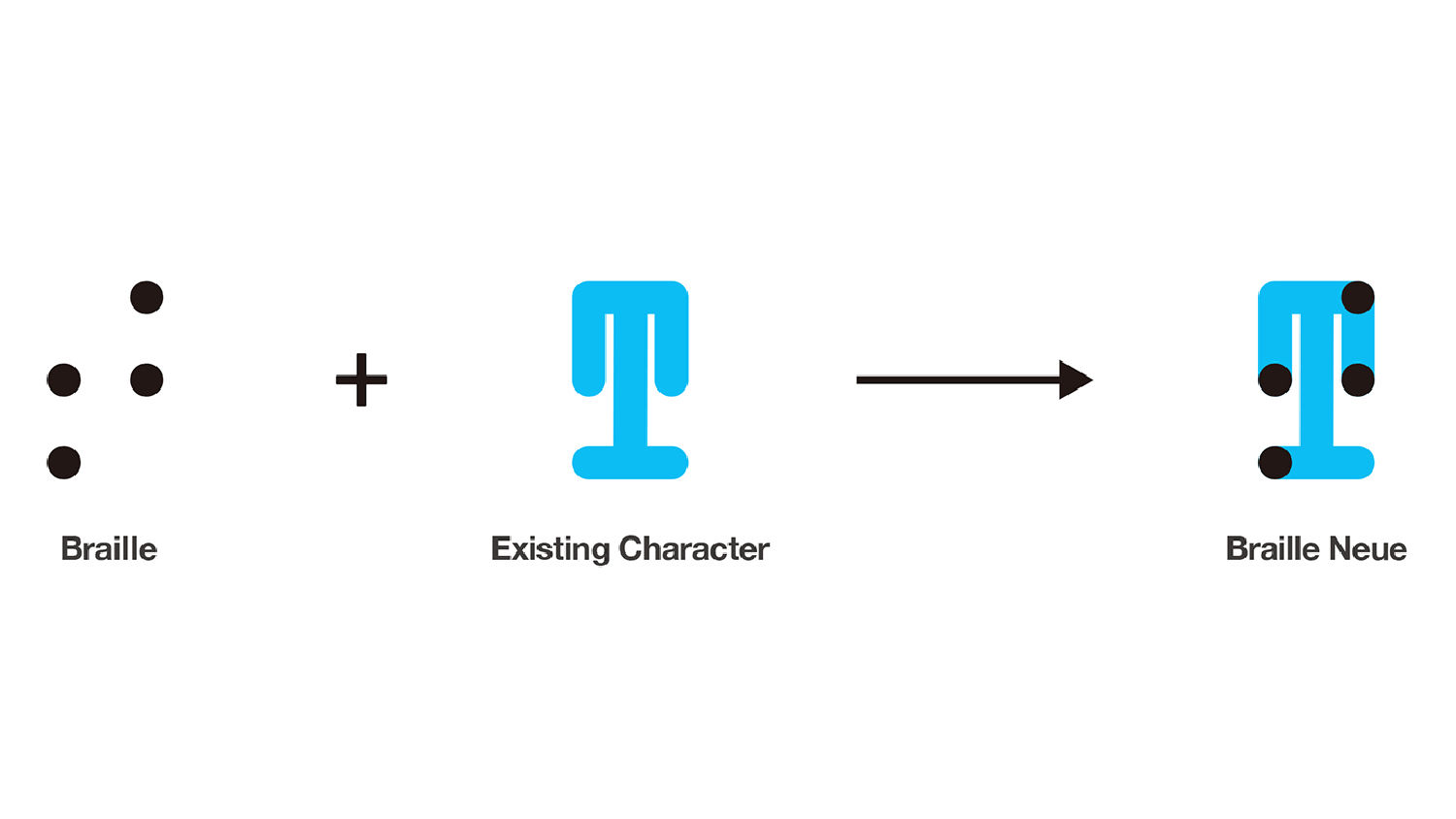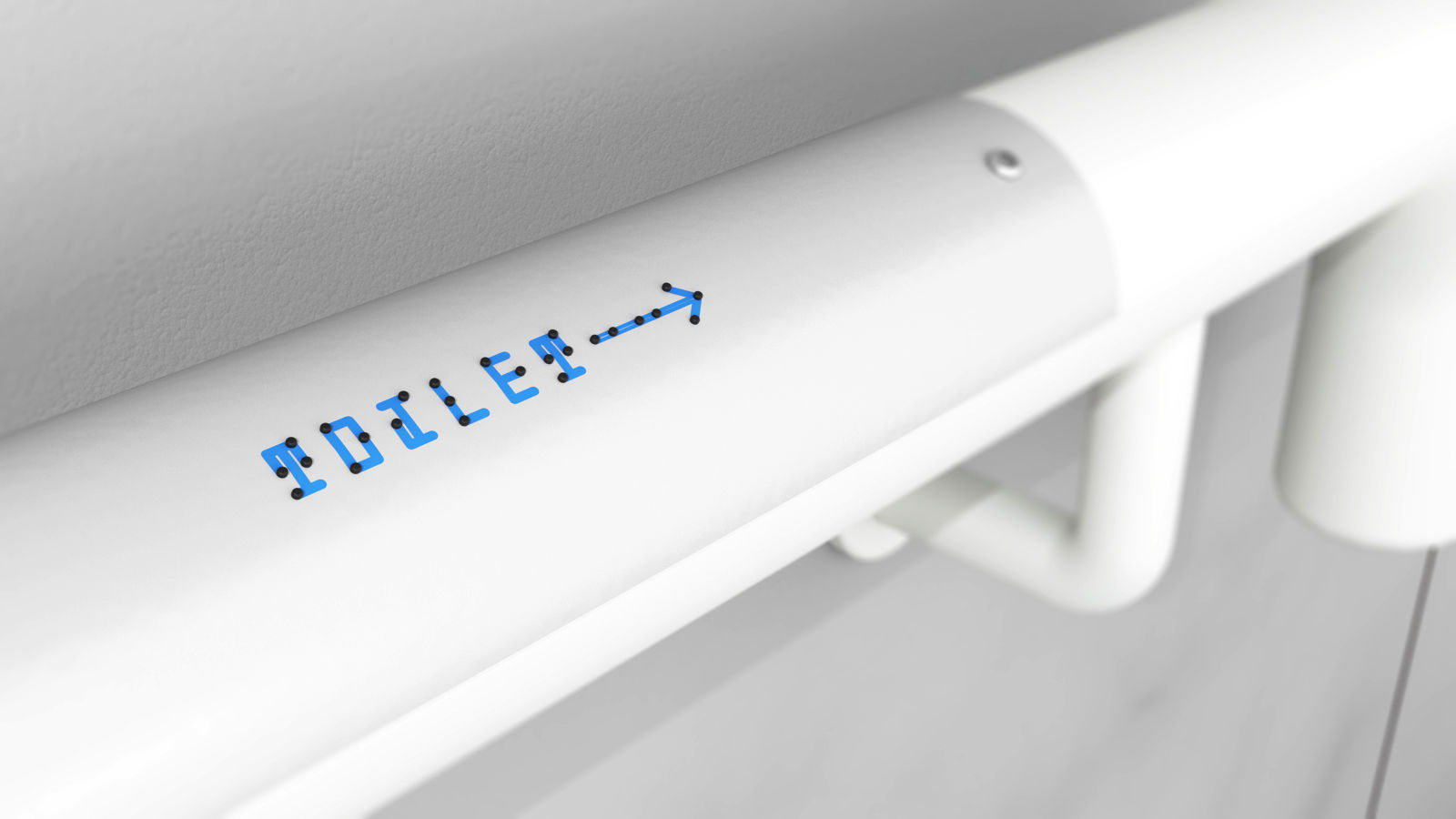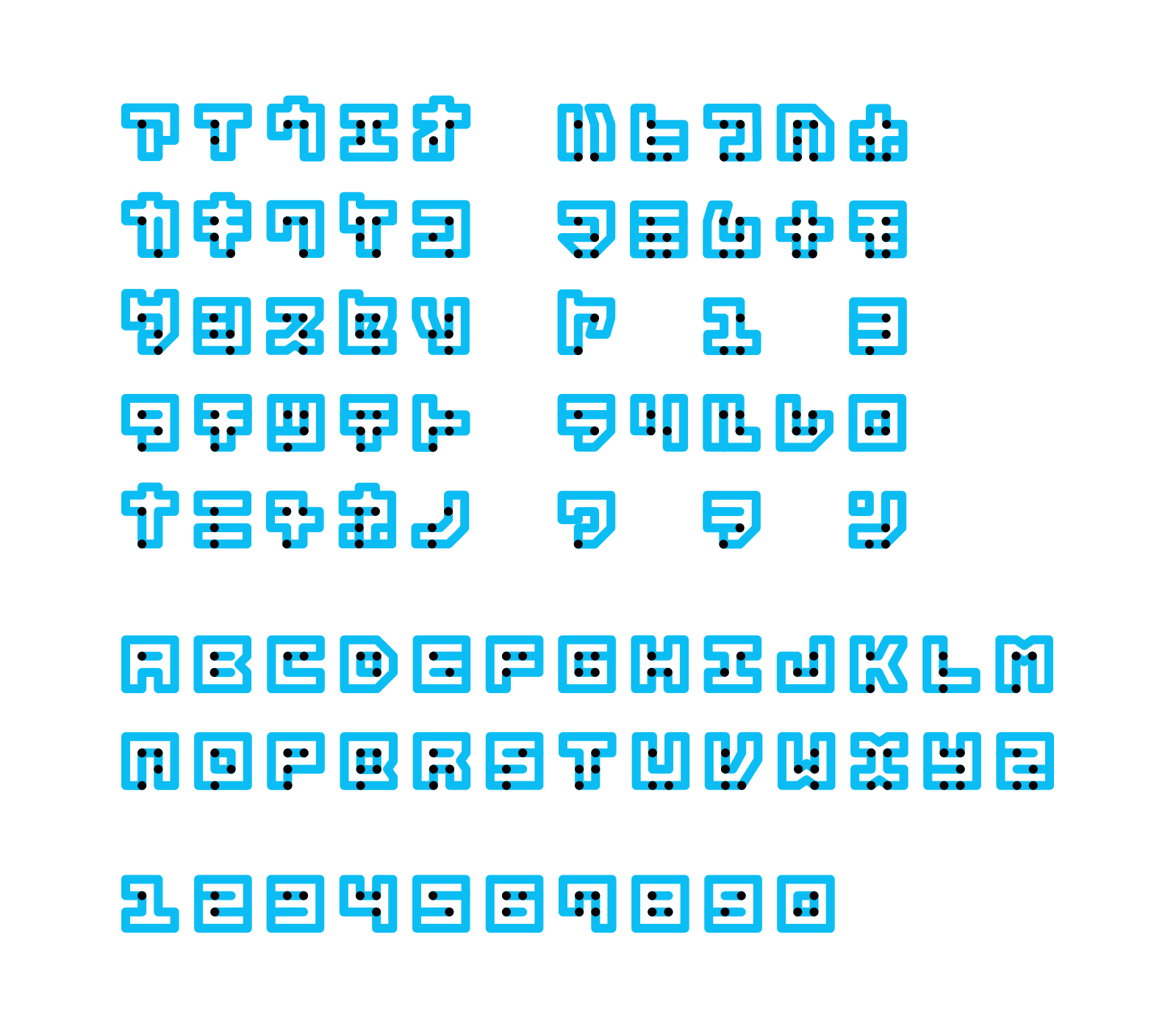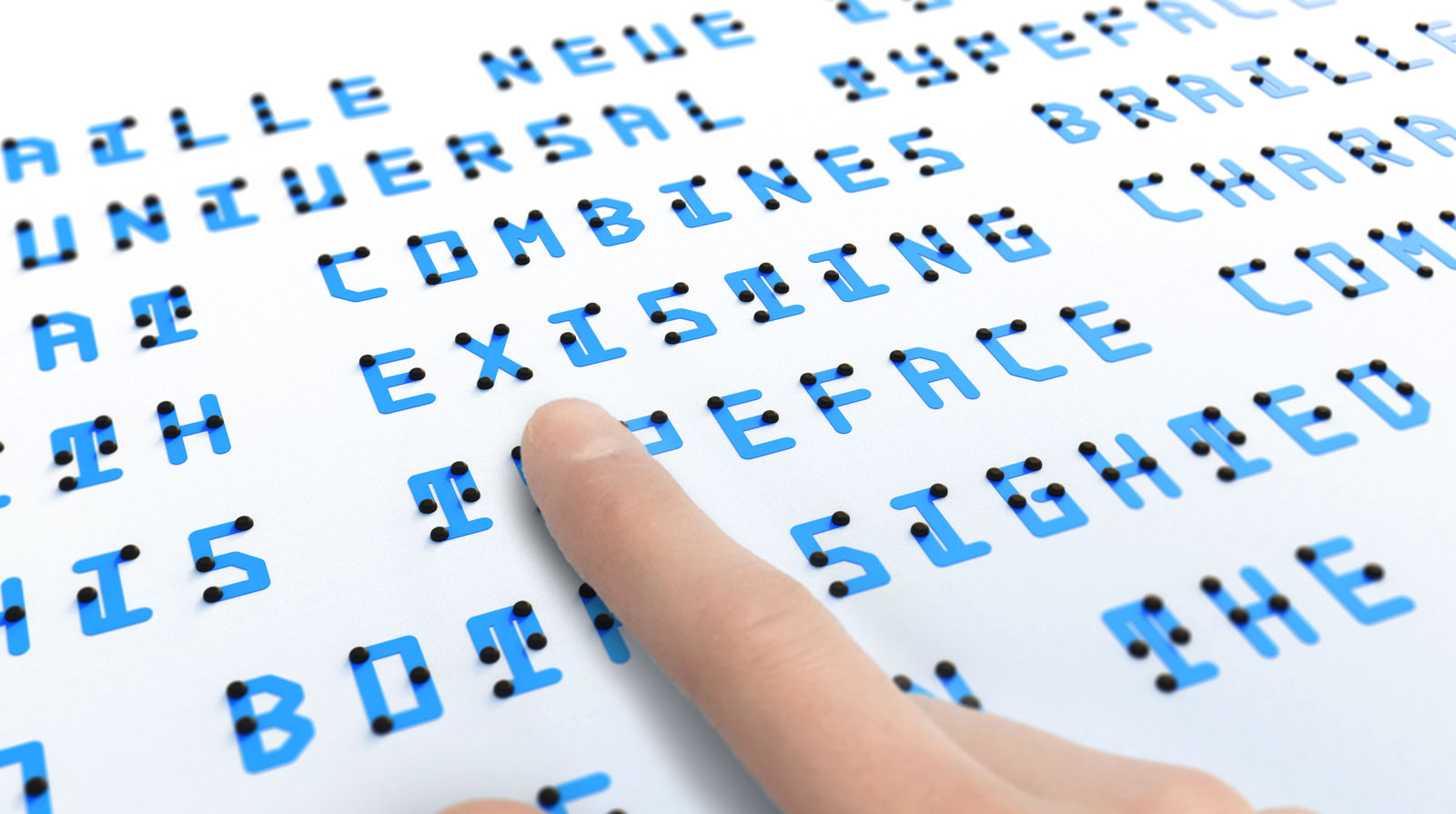
This typeface mixes Braille with visual letters to help make existing public signage more inclusive
There have been a number of designers who’ve experimenting with incorporating Braille – or a tactile system for visually impaired people – into the mainstream system. Last year a low cost printer dubbed b.my.jet which can print Braille was launched, we spoke to Viktoriya Grabowska about her digital typeface for visually impaired people and most recently, Elia Frames, a tactile reading system is about to launch on Kickstarter.
But we’re most struck by designer Kosuke Takahashi’s Braille Neue work-in-progress project – a universal typeface that combines Braille with existing English (seen below) and Japanese characters, so it communicates to both sighted and visually impaired people in the same space. Using Braille Neue means existing signage would only need to be slightly adjusted to incorporate visually impaired people.
We currently rarely see Braille implemented in public spaces, probably because the extra space for Braille hasn’t been prioritised. After all, there hasn’t been an easy correlation between Braille and the shapes of Latin glyphs, so there has been no easy way to place the two side by side, or on top of each other – until now.
Braille Nueve places tactile Braille dots over existing Latin and Japanese characters and letters (only a slight adjusting of kerning on existing signage would be needed) so visually impaired people could be adopted into existing infrastructure, helping to keep a “sustainable and inclusive future”, according to the typeface’s dedicated website.
Its designer, Kosuke Takahashi is a Japanese designer specialising in planning and prototyping at a Tokyo computer consultant, Ohako. At the age of 25 years old, his “phonevert” collaborative project, which looks at reusing the smartphone for other purposes, was recognised at the Beazley Designs of the Year in 2016.
He conducted research to see if large scale signage with Braille Neue was actually readable for visually impaired people, such as signs leading to terminals and toilets. He found that as long as there is a six-dotted pattern, it is possible for them to read the signs regardless of its size.
“Braille tends to be small and invisible, but with Braille Neue, it has the possibility to expand spatially into public signage in new ways,” he says.
Kosuke began designing his typeface with the Braille grid on top of Japanese characters, but this was too difficult to begin with. He resulted to using Latin glyphs to prove his concept, but as you can see below, not every letter is perfectly legible at speed, such as his I and T. He says these can be adjusted in the future.
There’s currently two fonts, Braille Neue Standard (Latin Alphabet) and Braille Neue Outline (Japanese and Latin Alphabet), which is seen below.
Of course, he mentions attempts to combine Braille with existing characters has been experimented with by various designers already, of which he used as references for Braille Neue.
They include Visual Braille (2009) by Christopher Heller, Braille Fonts (2014) by Larysa Kurak and Blind Words (2015) by Nuria Lopez.
Braille Neue is currently still a work-in-progress project, but Kosuke hopes to implement Braille Neue at the 2020 Tokyo Olympics and Paralympics, according to Fast Co Design.